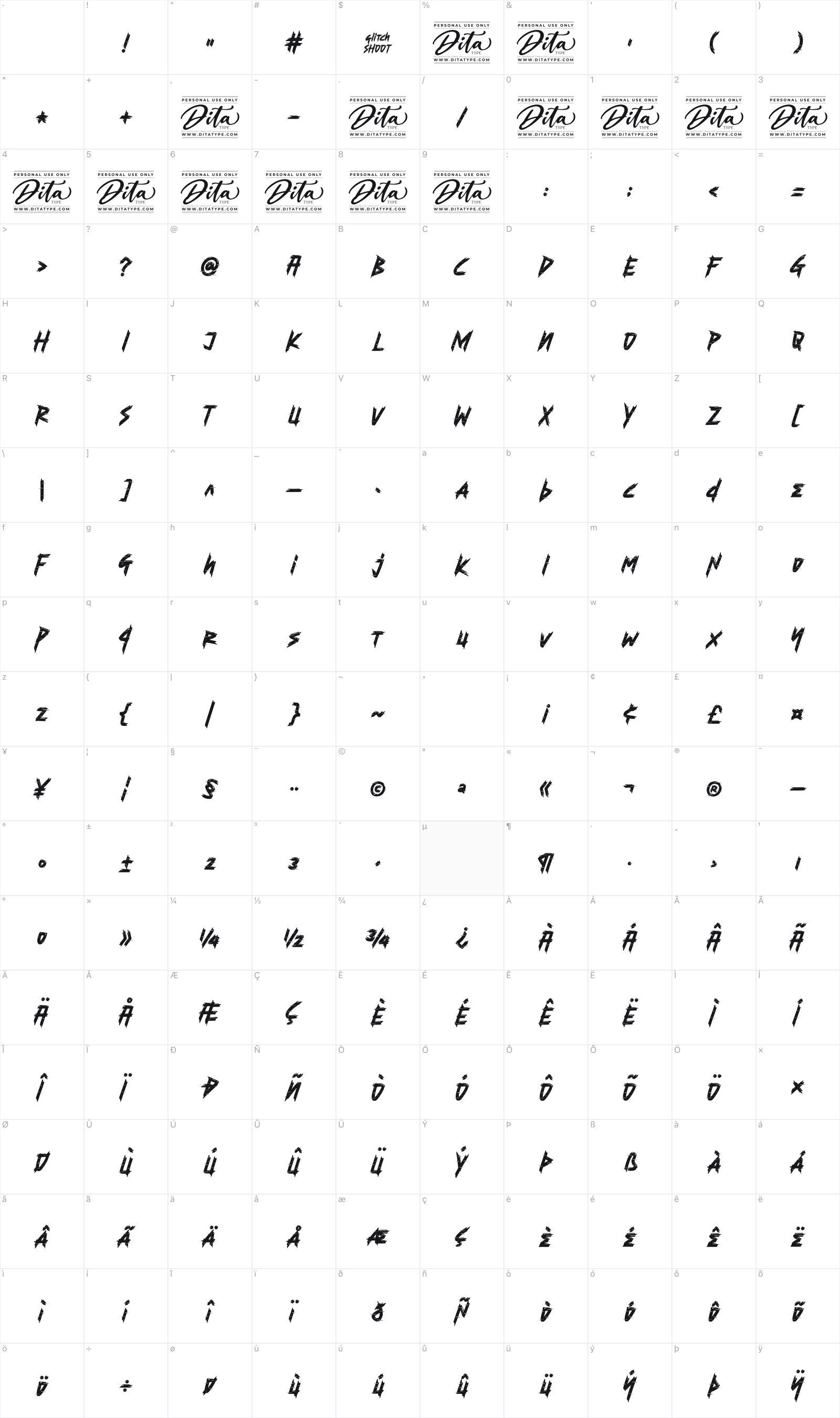
Glitch Shoot
Glitch Shoot is a distressed italic display font that looks like it was torn apart and digitally corrupted all at once. Every stroke is fractured with jagged splinters, eroded edges, and sharp angular cuts that give it a raw, almost violent energy. Built for titles, posters, and branding that need to hit hard.